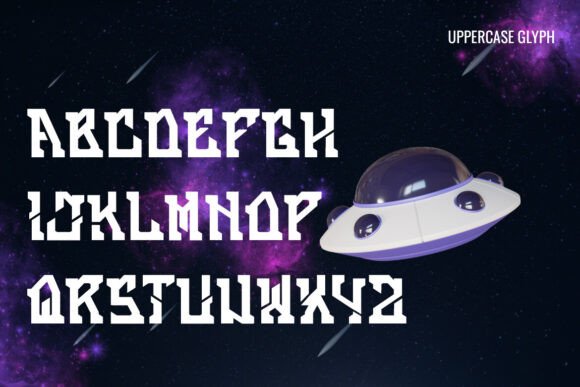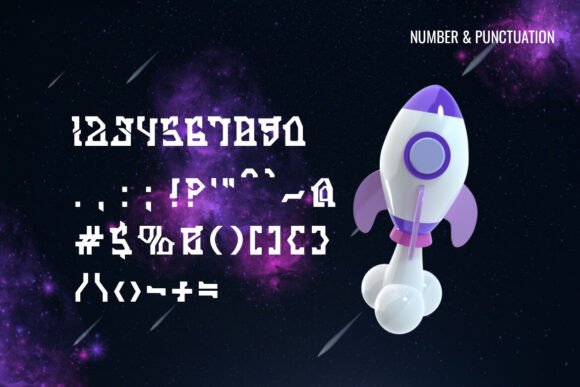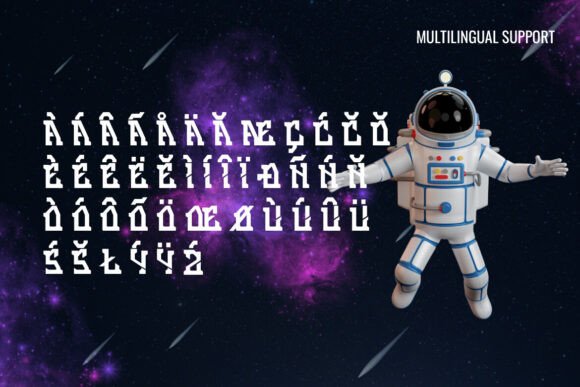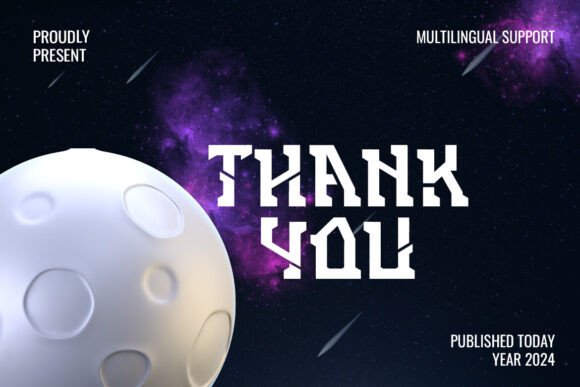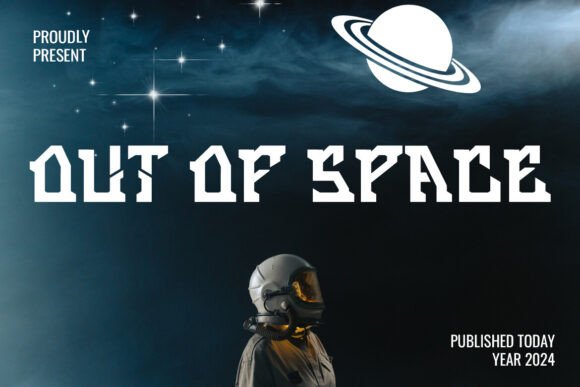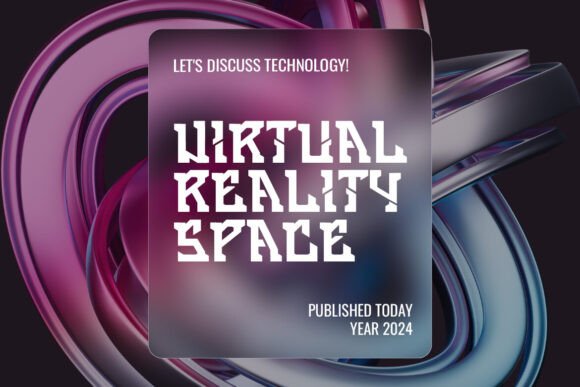
Introduction to Optimazer Font
Have you ever been working on a project, pouring over lines of code, or staring at a blank canvas, waiting for that perfect font to bring it all together? I know I have. It’s that moment when you’re about to give up, and then – like a ray of sunshine – you stumble upon the perfect design resource.
That’s exactly what happened when I discovered the Optimazer Font. Its sleek, modern design immediately caught my eye, and I knew it was the perfect addition to my creative project. With its clean lines and sharp angles, the Optimazer Font adds a bold, futuristic look to any text, making it a high-quality choice for designers looking to give their work a cutting-edge feel.
Key Features of Optimazer Font
- Unique, modern design with a transparent background, making it perfect for digital and web applications.
- Optimized for high-resolution displays, with a resolution of up to 300 DPI, ensuring crisp and clear typography.
- Perfect for use in various design projects, including logos, branding, and digital signage.
- Comes with a comprehensive character set, including uppercase and lowercase letters, numbers, and punctuation marks.
Honest Review: Optimazer Font
I recently came across the Optimazer Font and I was excited to dive in and see what it had to offer. As a designer, I’m always on the lookout for high-quality design resources to enhance my creative projects.
One of the standout features of the Optimazer Font is its versatility. It’s perfect for a wide range of projects, from digital designs to print materials, and its high quality makes it a great addition to any design resource collection.
Some of the things that work well with the Optimazer Font include:
- Its transparent background, which makes it easy to customize and integrate into your design.
- Its clean and modern aesthetic, which is perfect for contemporary designs.
- The font may not be as suitable for traditional or vintage designs.
Overall, I was impressed with the Optimazer Font and would definitely recommend it to fellow designers. With its high quality and versatility, it’s a great addition to any design resource collection.
The Optimazer Font is ideal for various creative projects, including graphic design, digital art, and marketing materials. Its high-quality design and transparent background feature make it a popular choice among designers.
To get the most out of the Optimazer Font, experiment with different font sizes, colors, and styles to match your design requirements. You can also use the font in combination with other design elements to create a unique and eye-catching visual effect.